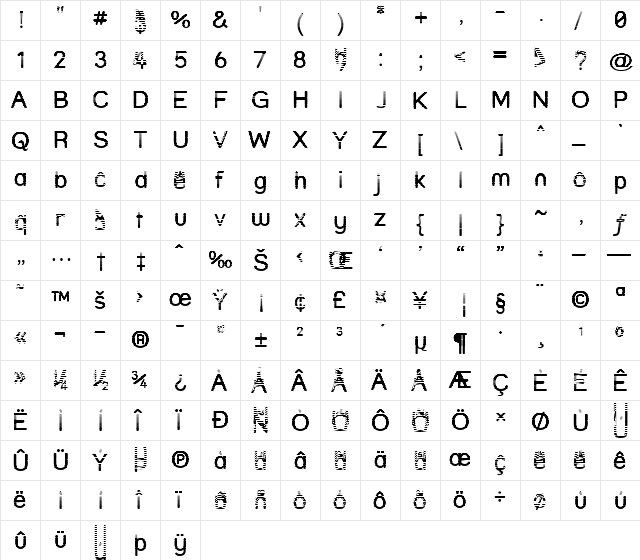
Street - Lined Regular
Design Context for Street - Lined Typeface
Street - Lined offers clean, dependable letterforms without strong stylistic allegiance, making it a practical choice for designers who need flexibility.
Pro Tip: Use Street - Lined in both headline and body roles to test its range before committing to a single application.